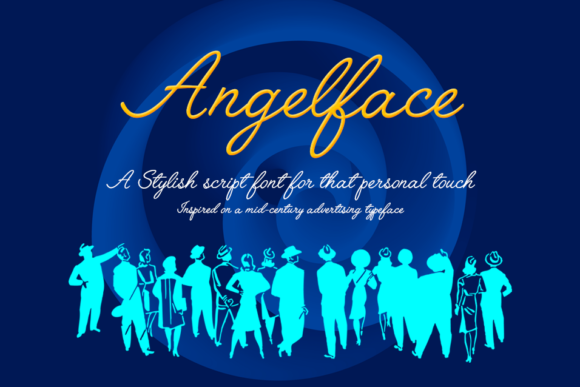
Introduction to Angelface Font
Angelface embodies fun, quirkiness and authenticity.
This enchanting handwritten font will turn any creative idea into a true standout .